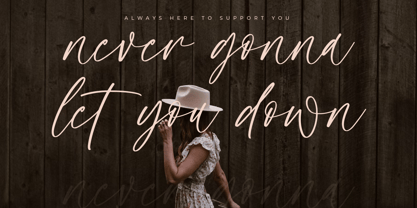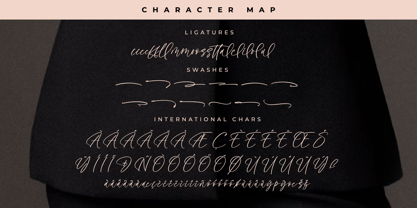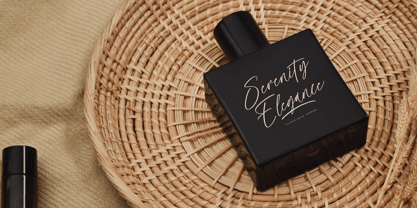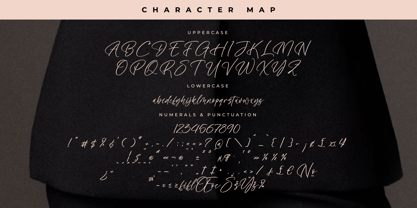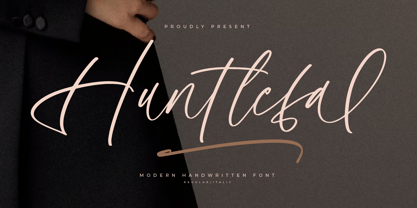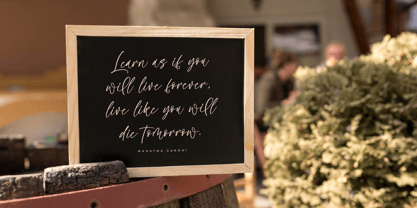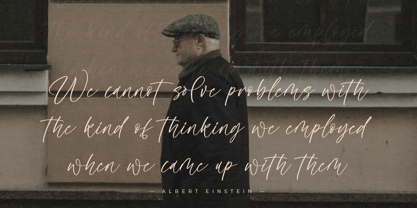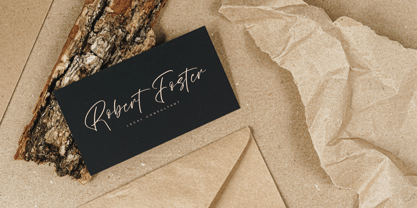
Huntlefal
The Huntlefal Font Family was designed by Heru Utama Putra and published by Letterena Studios. Huntlefal contains 2 styles and family package options.
Huntlefal is an exquisite handwritten font, masterfully designed to become a true favorite. It maintains its classy calligraphic influences while feeling contemporary and fresh. Fall in love with it and bring your projects to the highest levels!